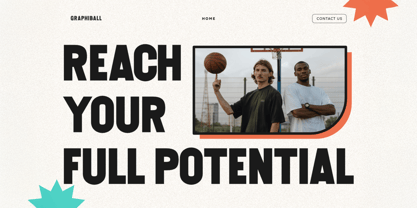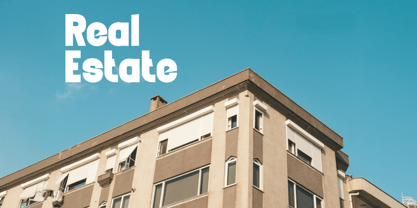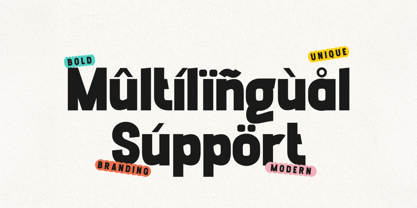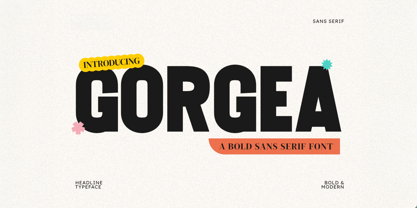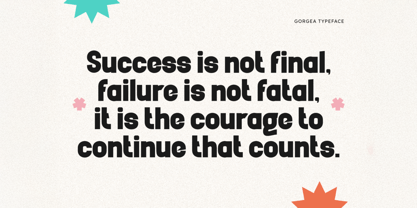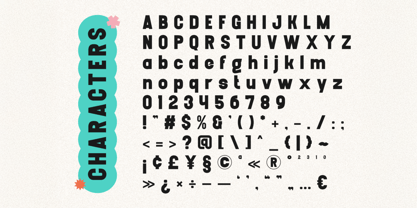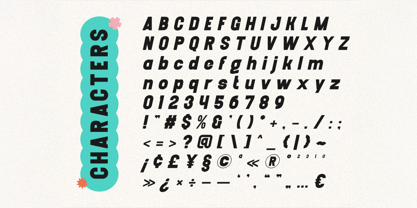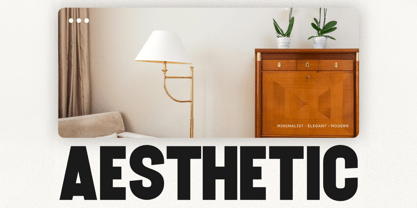
Gorgea
Gorgea is a bold sans serif font designed to deliver modern minimalism with confident elegance. Built for impactful branding, clean logos, editorial headlines, and striking social media graphics, Gorgea brings a fresh, contemporary feel to any project that needs to stand out.
The Regular style offers bold, geometric letterforms with a balanced and modern silhouette, while the Italic style introduces dynamic movement and a sleek edge for a versatile, polished look. Whether you’re crafting a powerful wordmark or stylish poster title, Gorgea is ready to make a statement.
From sophisticated brand identities to minimalist packaging and on-trend digital designs, Gorgea gives your typography the bold yet refined aesthetic it deserves.
Features:
• Bold sans serif with modern minimalist character
• Two styles: Regular • Italic
• Uppercase & lowercase letters
• Numerals & punctuation
Let your words speak loud and clear with Gorgea.
Perfect for: Branding • Logos • Posters • Editorial • Social Media • Packaging